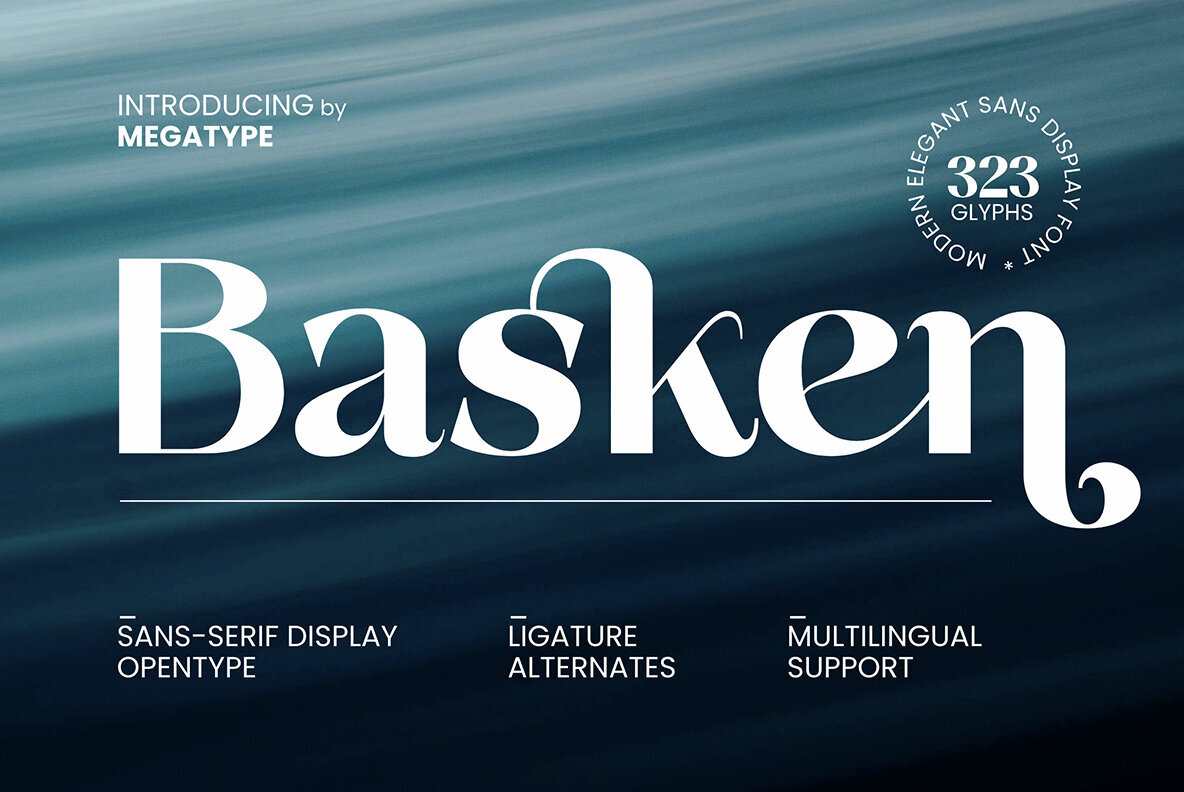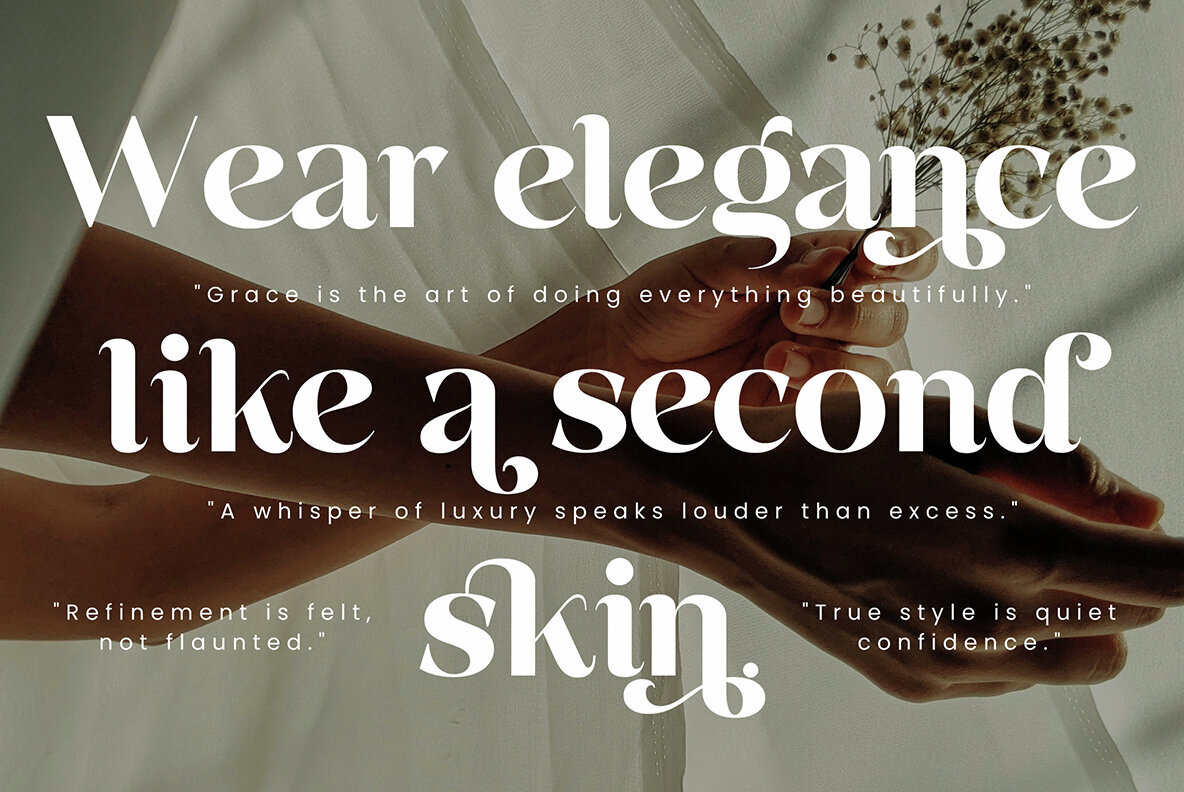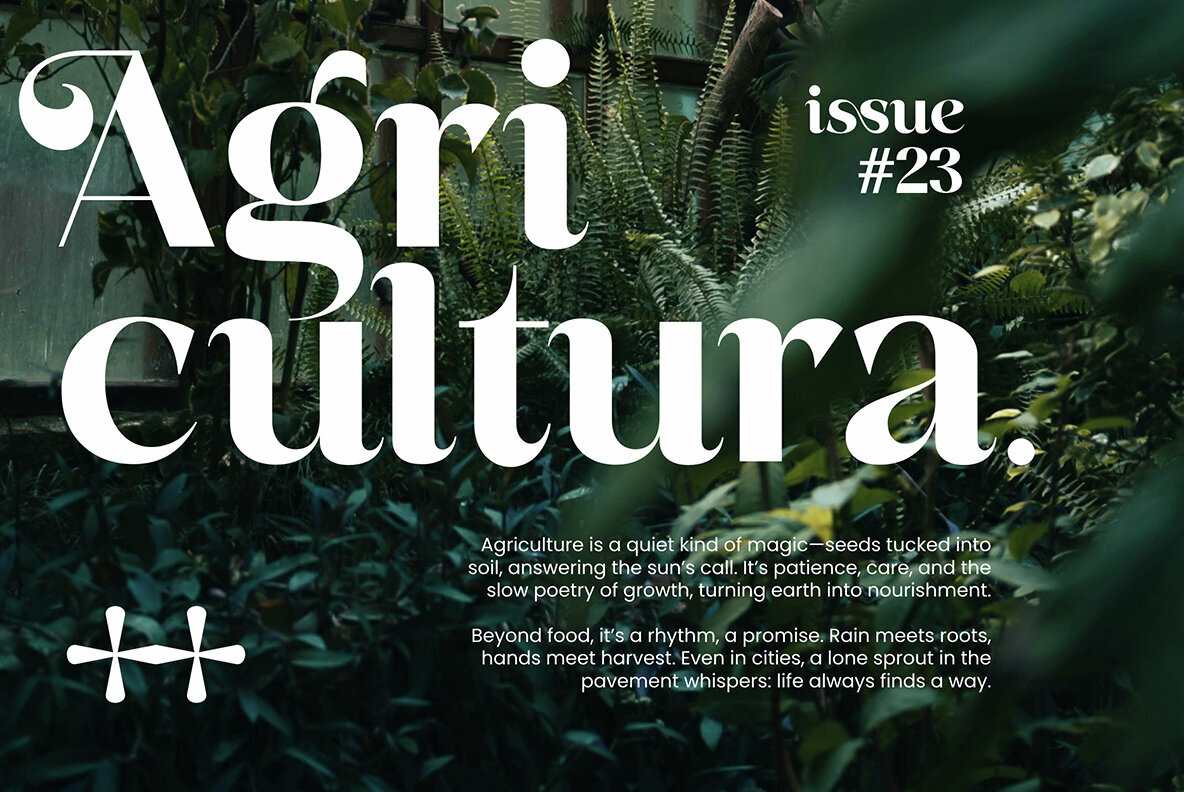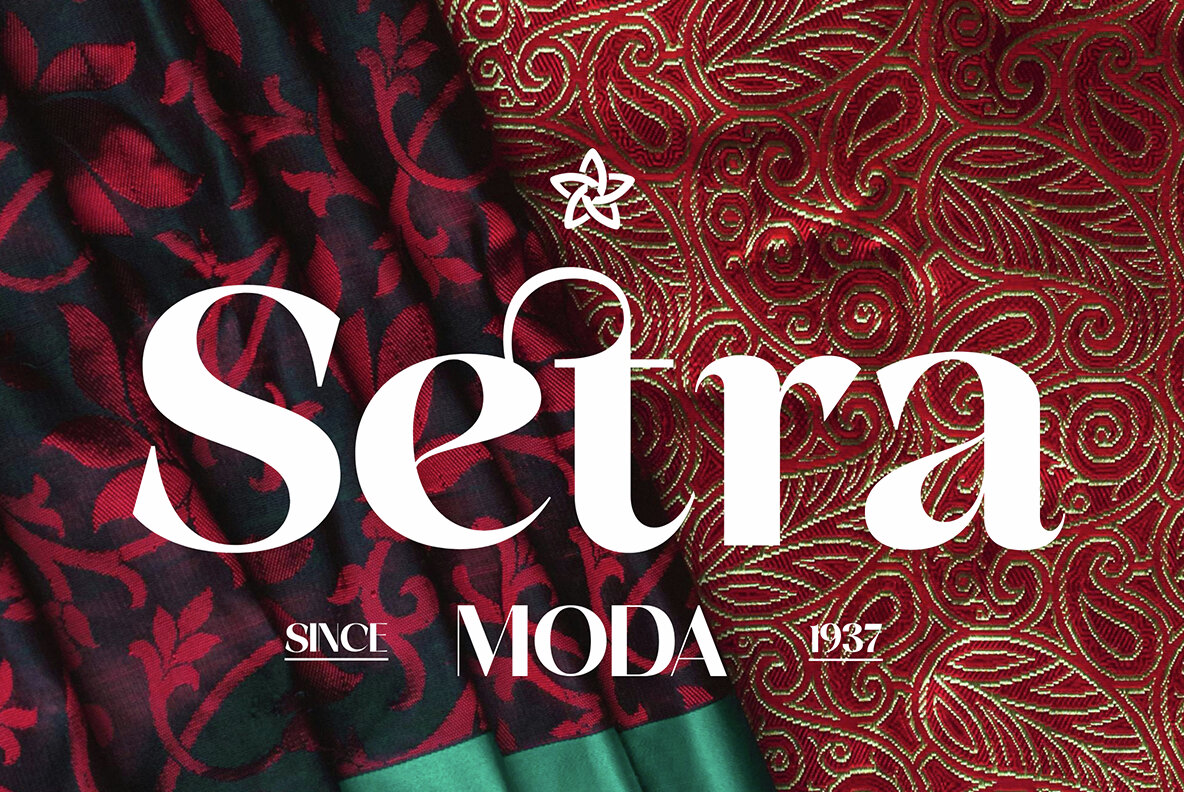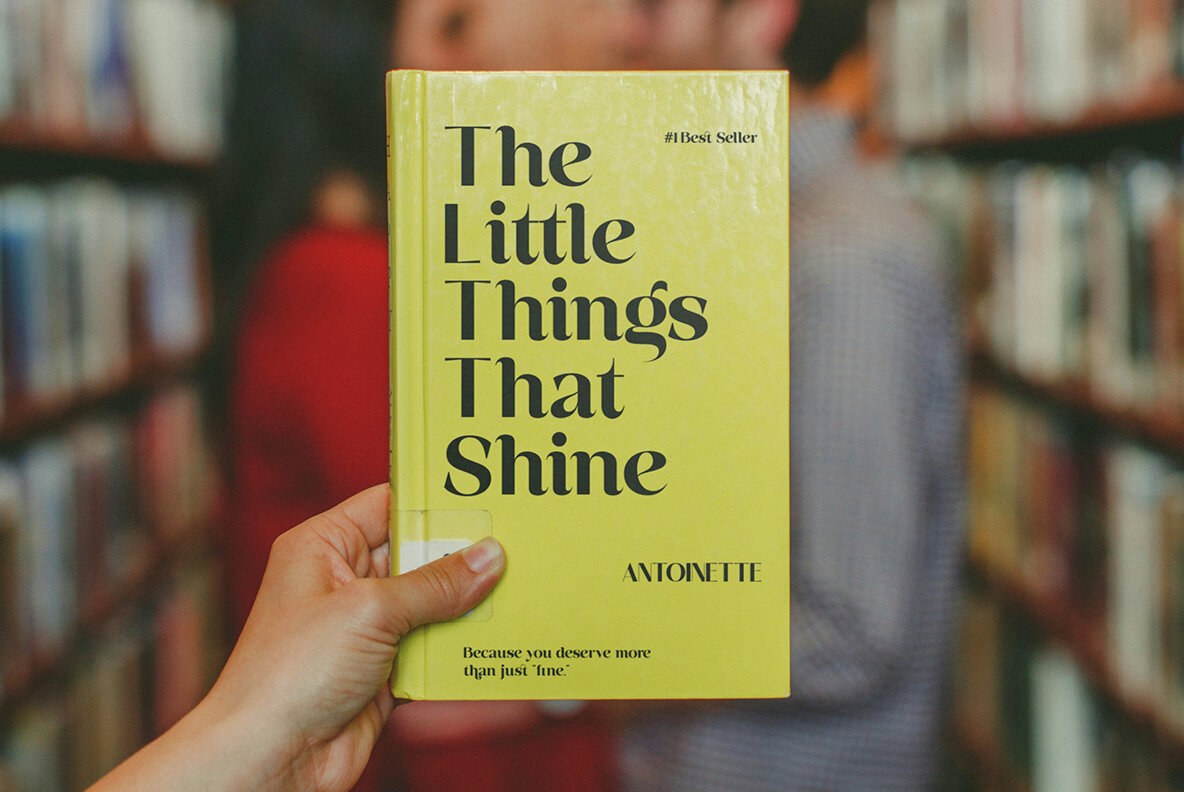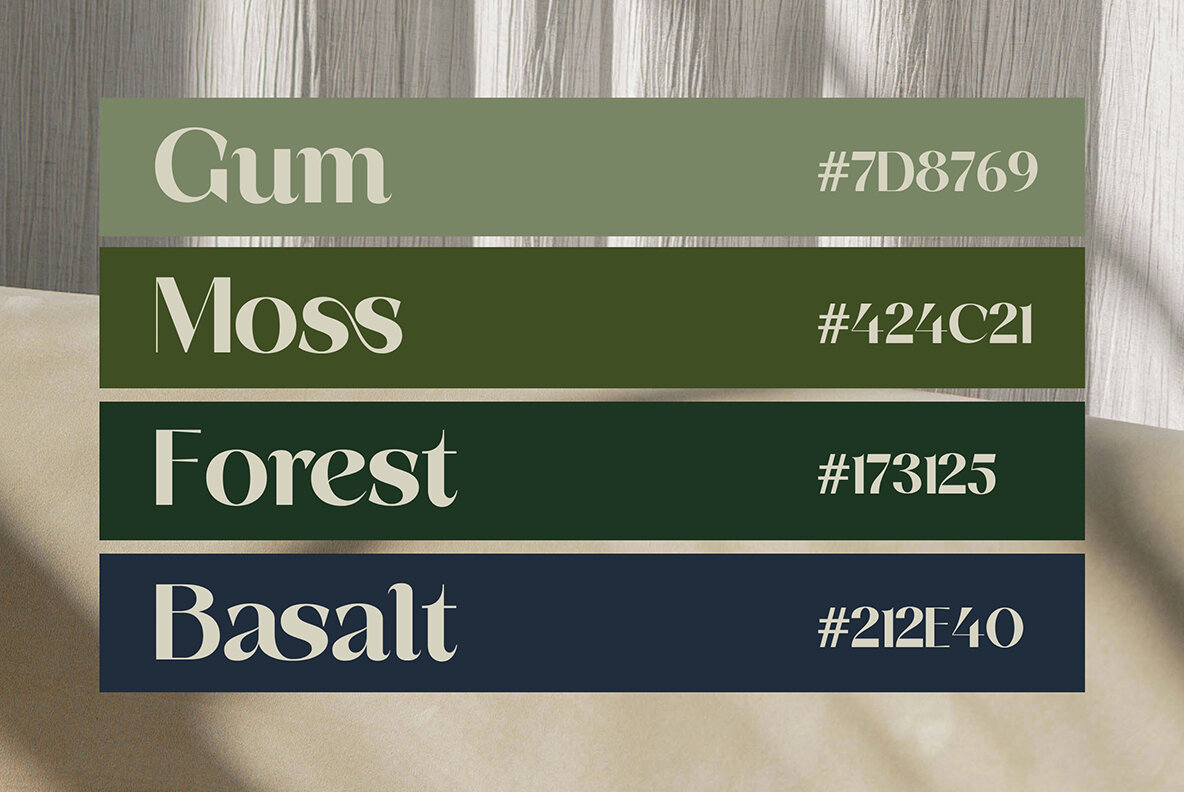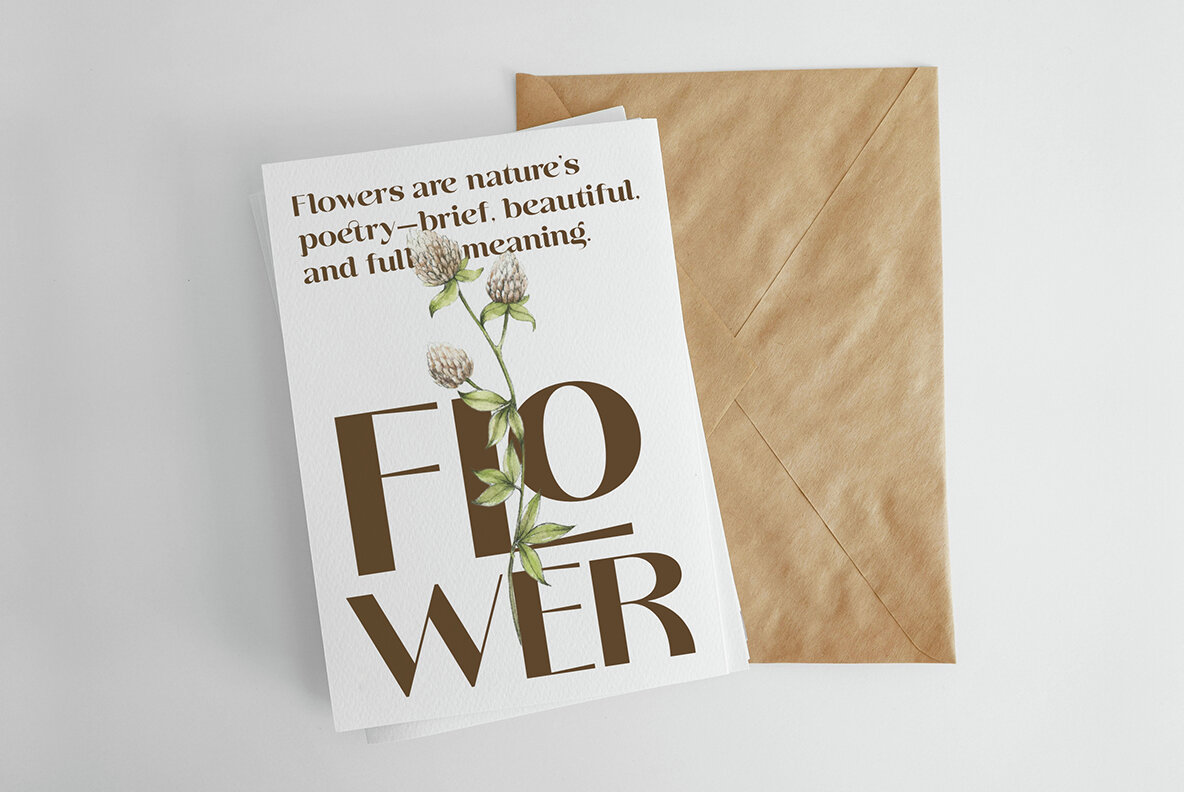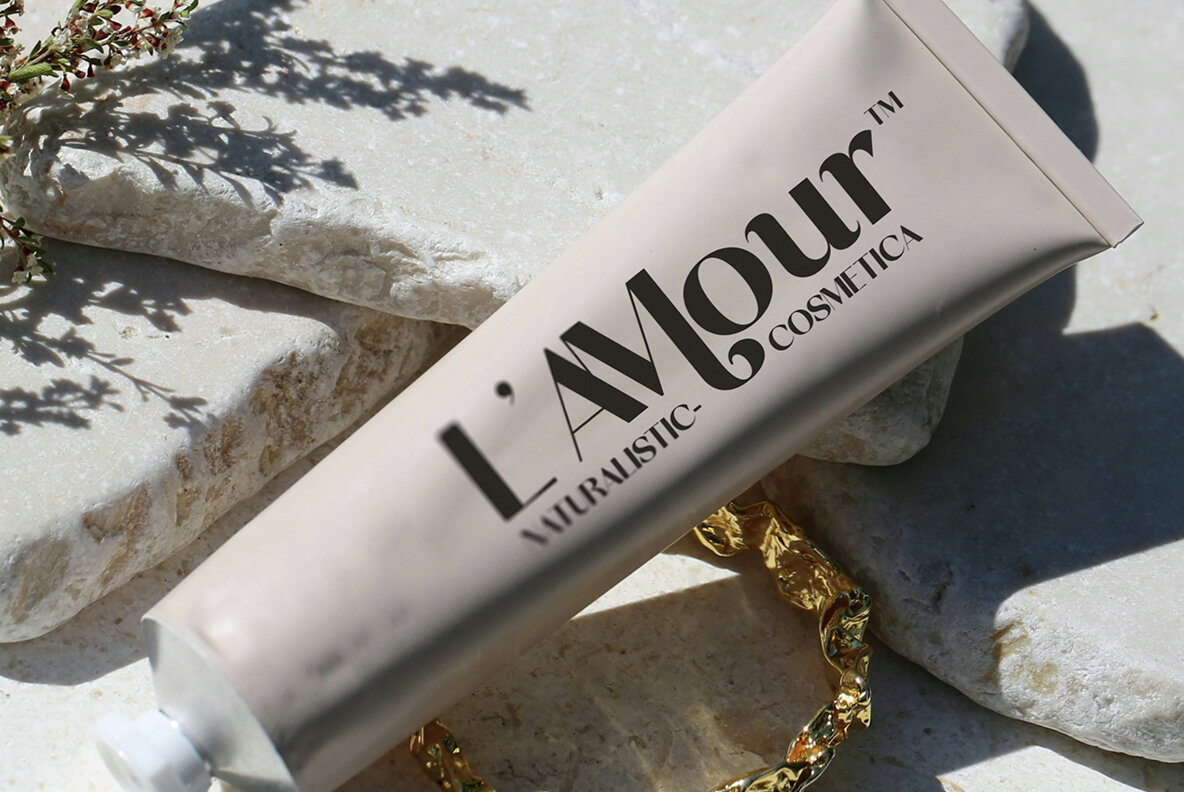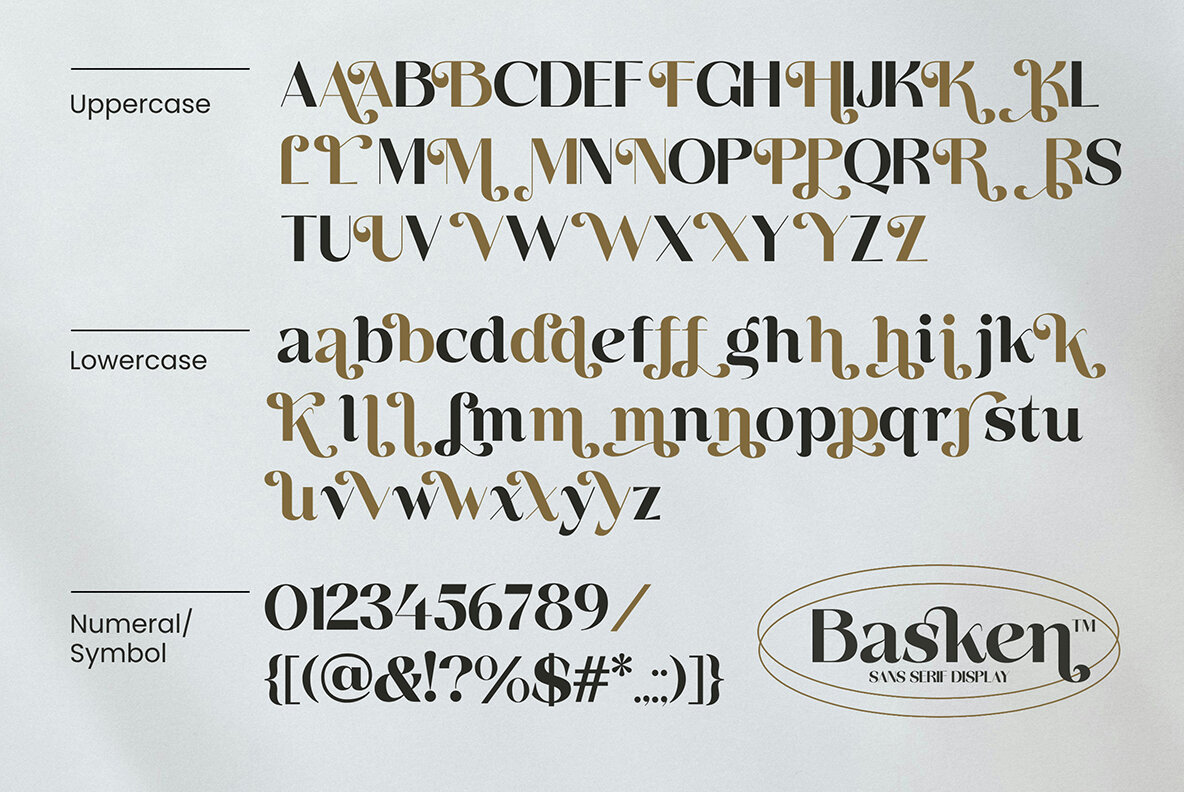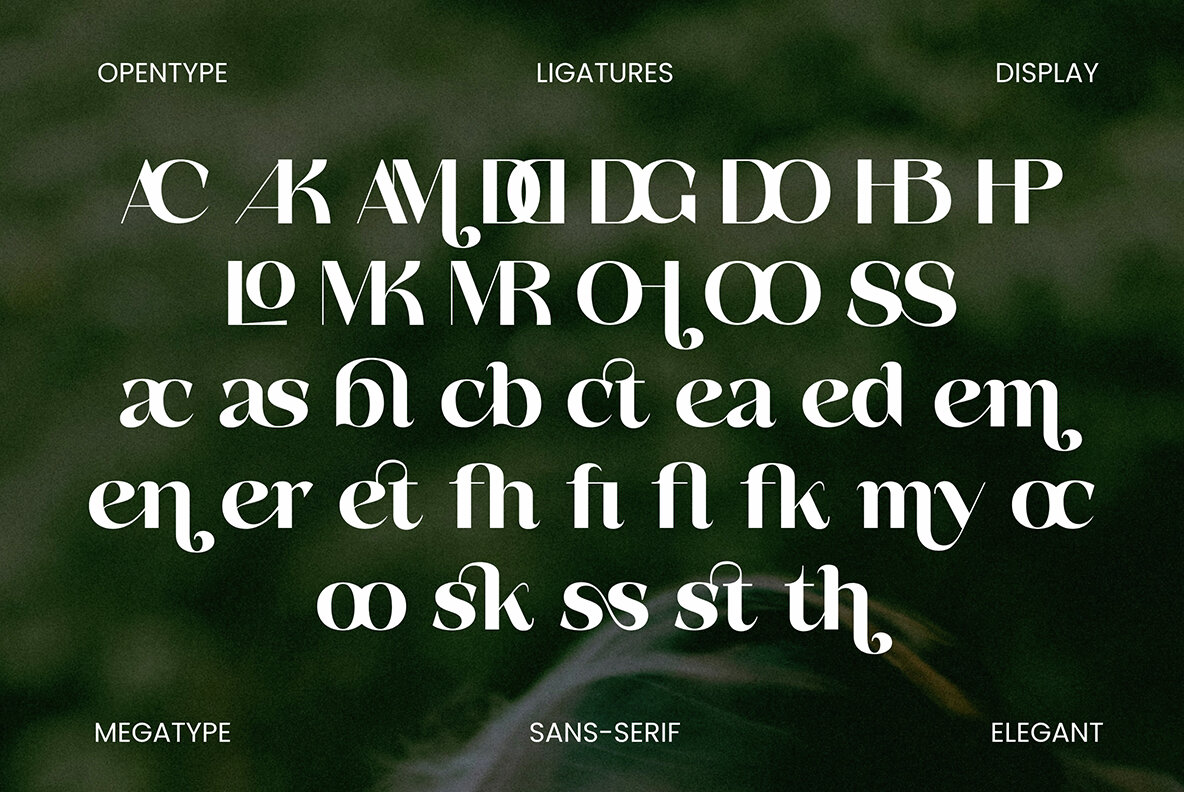
Basken Font
Basken Regular
Basken by Megatype embodies a seamless blend of modern and vintage aesthetics, creating a sophisticated Sans Serif display font. Basken offers a rich array of OpenType features, presenting you with a selection of alternates and ligatures to design the perfect typographic composition. The font supports both uppercase and lowercase variations, ensuring a luxurious and elegant visual appeal in various creative projects. This versatile font shines in branding, logo design, and clothing branding. It's also an excellent choice for packaging, magazine titles, book titles, advertising, t-shirts, and postcards. Whether you're designing for print or digital media, Basken delivers a touch of class and style.Basken Sans Serif Display Font